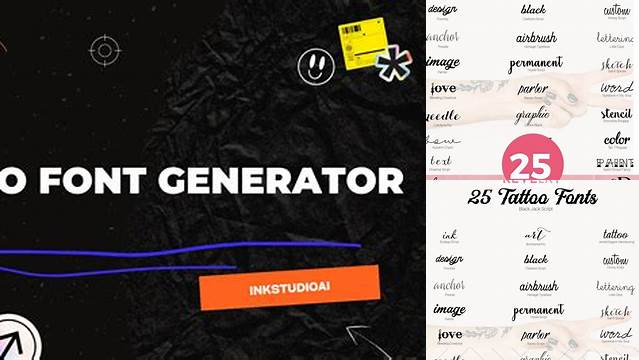
Free Tattoo Fonts: Your Ultimate Guide
Are you guys ready to level up your tattoo game? One of the most crucial aspects of any tattoo is the font. It can completely transform the look and feel of your design. That's why I'm stoked to dive into the world of free tattoo fonts, which are an awesome way to experiment with different styles and find the perfect fit for your next piece of body art. We'll cover everything from classic to modern styles, ensuring you're equipped with the knowledge to choose the ideal font. Let's get started, shall we?
Why Choose Free Tattoo Fonts?
So, why bother with free tattoo fonts when there are so many premium options out there? Well, a few reasons make them a fantastic choice. First off, the price is unbeatable – zero! You can access a massive library of fonts without spending a dime, which is super cool if you're on a budget or just starting out. Free tattoo fonts offer an amazing opportunity to explore various styles and designs. It allows you to test out different looks and see what resonates with you. There's a vast selection, including everything from traditional scripts to modern, edgy designs. It gives you the freedom to try out multiple styles before settling on the perfect one. Many websites and platforms offer extensive collections of free fonts, so you'll have an endless supply of options. This variety means you'll likely find a font that perfectly matches your personality and the message you want to convey through your tattoo. Moreover, downloading and using free fonts is incredibly easy. Most sites provide simple, user-friendly instructions. You'll be able to download, install, and start using the fonts within minutes. This ease of access is especially great for those who want to get started quickly without any technical hassles. However, always be mindful of the licensing agreements. Check the terms of use for each font to ensure it's okay for commercial purposes if you plan to use it for client work.
Top Tattoo Font Categories and Styles
Now, let's explore some of the coolest tattoo font categories and styles out there. This will help you find inspiration and figure out what kind of look you're going for. Are you guys ready?
Script Fonts
Script fonts are a classic choice for tattoos. They mimic handwriting and often add a touch of elegance, romance, or personalization to your design. They're perfect for names, quotes, or any text that benefits from a flowing, graceful appearance. There's a wide range of script fonts available, each with a unique vibe. Some are bold and dramatic, while others are delicate and subtle. Here are some of the popular styles:
- Classic Scripts: Think of traditional calligraphy styles, like the ones you might see in old love letters or invitations. These fonts often feature elaborate swirls and flourishes, adding a timeless feel to your tattoo. They're perfect for names, dates, or short quotes that you want to appear elegant.
- Modern Scripts: These fonts offer a more contemporary take on the script style. They might be less ornate than classic scripts, with a cleaner, more streamlined appearance. They often have a handwritten feel, giving your tattoo a personal touch. They're super versatile and work well for various designs.
- Brush Script: These fonts mimic the look of a brush stroke. They are usually a bit more casual and dynamic than other script styles. They're excellent for creating a more artistic and informal vibe. They're often used for phrases or words that need a touch of personality.
When choosing a script font, consider the length of the text and the overall design of your tattoo. Ensure that the script font is readable and that the flourishes don't clutter the design. Script fonts can be incredibly beautiful, but they also require careful selection to ensure the final result is both aesthetically pleasing and clear.
Serif fonts are a great choice if you're looking for a more traditional and formal style. These fonts have small strokes, called serifs, at the end of each letter, which adds a touch of elegance and readability. They're super versatile and can be used in various tattoo designs.
- Classic Serifs: These fonts, like Times New Roman or Garamond, are timeless and reliable. They offer excellent readability and a sense of sophistication. They're great for longer text, like quotes or song lyrics, as their design makes them easy to read at different sizes.
- Modern Serifs: Modern serifs, such as Bodoni or Didot, are more streamlined and often feature high contrast between thick and thin strokes. They're stylish and can add a touch of luxury to your tattoo. However, due to their more delicate structure, they may not be suitable for very small or detailed designs.
Serif fonts are an excellent choice when you want a refined and classic look. Consider the font's weight and style to ensure it complements your overall design and is easy to read.
Sans-serif fonts, which means “without serifs,” are a popular choice for a clean, modern look. These fonts have a simple, straightforward design, making them easy to read and versatile for various tattoo designs. These are often used for more modern or minimalist tattoos.
- Geometric Sans-Serif: These fonts, such as Futura or Helvetica, have a clean, geometric structure. They're often used to create a sleek, modern aesthetic. They are excellent for minimalist designs and text that needs to stand out with its simplicity.
- Rounded Sans-Serif: Fonts like Montserrat or Open Sans have a softer, more friendly appearance due to their rounded edges. They can add a touch of warmth and approachability to your tattoo. They're a great choice for tattoos that need to feel inviting.
Sans-serif fonts are great for clarity and readability, especially in larger sizes. They work well in various styles and can create both bold and subtle designs. Always make sure the font you choose complements the overall aesthetics of your tattoo.
Conclusion: Ink Your Style with Free Tattoo Fonts
Choosing the perfect font for your tattoo is a fun and creative process, especially with the abundance of free tattoo fonts available. By exploring the different styles, understanding the licensing agreements, and seeking advice from your tattoo artist, you can create a design that is unique and meaningful. Remember to consider readability, meaning, and personal preference. So, go out there, explore your options, and find the perfect font to make your tattoo a true work of art! Good luck, and happy inking!